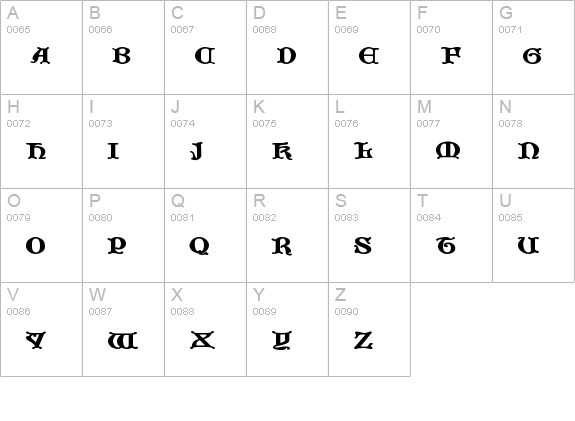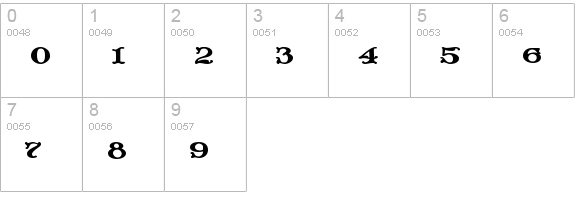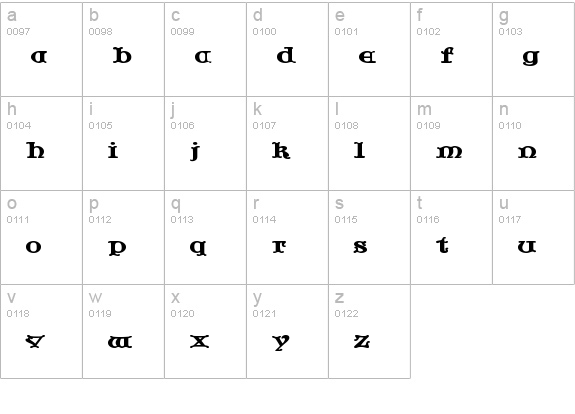
JF Cotswold Letters Font Details
The JF Cotswold Letters font is a beautifully crafted typeface that exudes elegance and sophistication. Its timeless design draws inspiration from the quaint charm of the Cotswold countryside, making it the perfect choice for projects that require a touch of rustic appeal. With its carefully hand-drawn letterforms and exquisite details, JF Cotswold Letters brings a sense of authenticity to any design. The font's graceful curves and delicate serifs add a touch of refinement, making it suitable for a wide range of applications, from wedding invitations and stationery to branding and packaging. What sets JF Cotswold Letters apart is its versatility. Whether you're looking to create a vintage-inspired design or a modern and minimalist look, this font has you covered. Its wide range of weights and styles allows for endless possibilities, ensuring that your designs will always stand out. One of the best things about JF Cotswold Letters is that it is freely available to download at FontsMarket.com. This means that you can easily add this stunning font to your collection without any cost. Whether you're a professional designer or a hobbyist, having access to high-quality fonts like JF Cotswold Letters can greatly enhance your creative projects. So why wait? Download JF Cotswold Letters today and bring a touch of timeless elegance to your designs. With its captivating beauty and free availability, this font is a must-have for anyone looking to elevate their typographic creations.